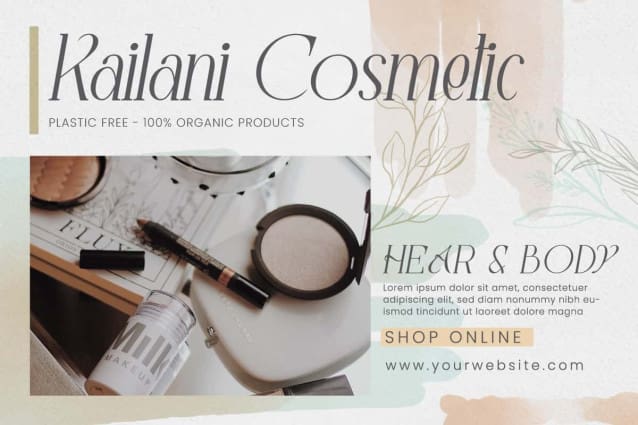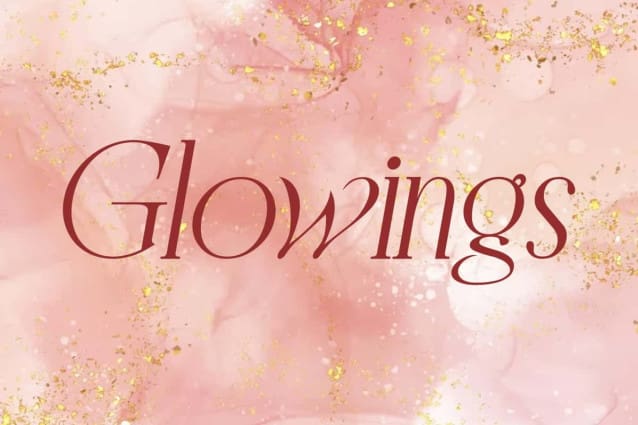
Glowings Font
Glowings Font is a modern sophisticated serif display font with an italic type that dares to be different and expressive, it is ready to elevate the visuals of your design with extraordinary elegance. It will be perfect for cards design, headers, label, mockup, product packaging, stationery, title, website, and much more.
Glowings Font contains a complete set of basic Uppercase and Lowercase characters, Numbers, Symbols and Punctuation. It’s a versatile font that’s perfect for any project, with high-contrast lettering characters that are easy to read, providing both feminine and masculine qualities. This awesome font is perfect for boutique, cosmetic, real estate, skincare, spa salon, and so much more.